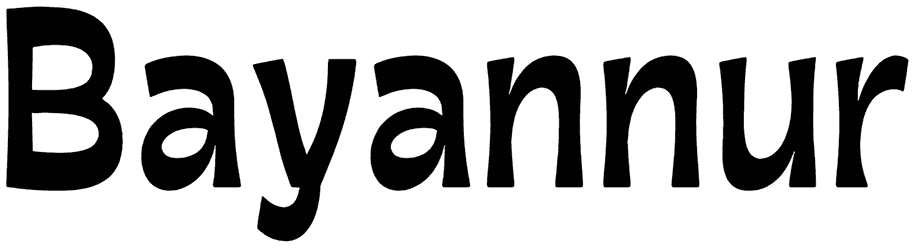
Golden Day Font
If you need a sans serif font to take your layouts to the next level, you’re welcome to download the Golden Day font. This font offers 3 different styles, use it for books, websites, games, and other needs. Give it a shot yourself, and in case you need more, browse our website without further delay.
Designed by: Display Studio